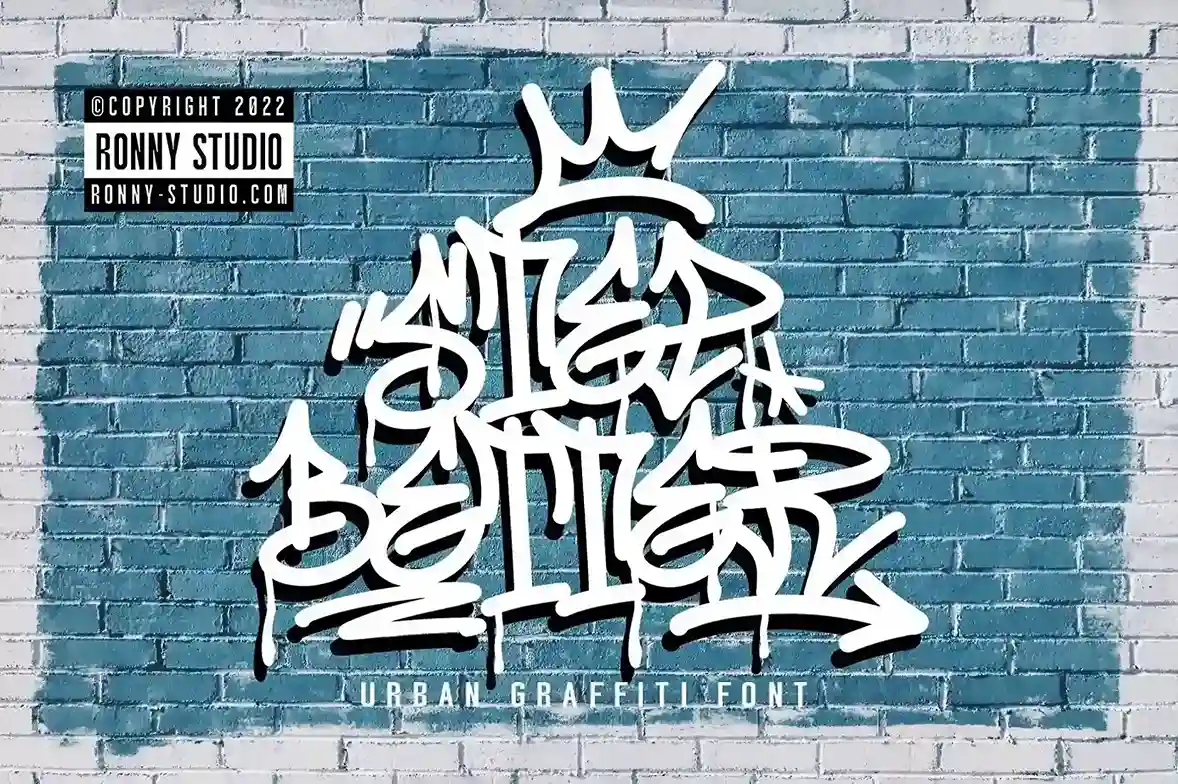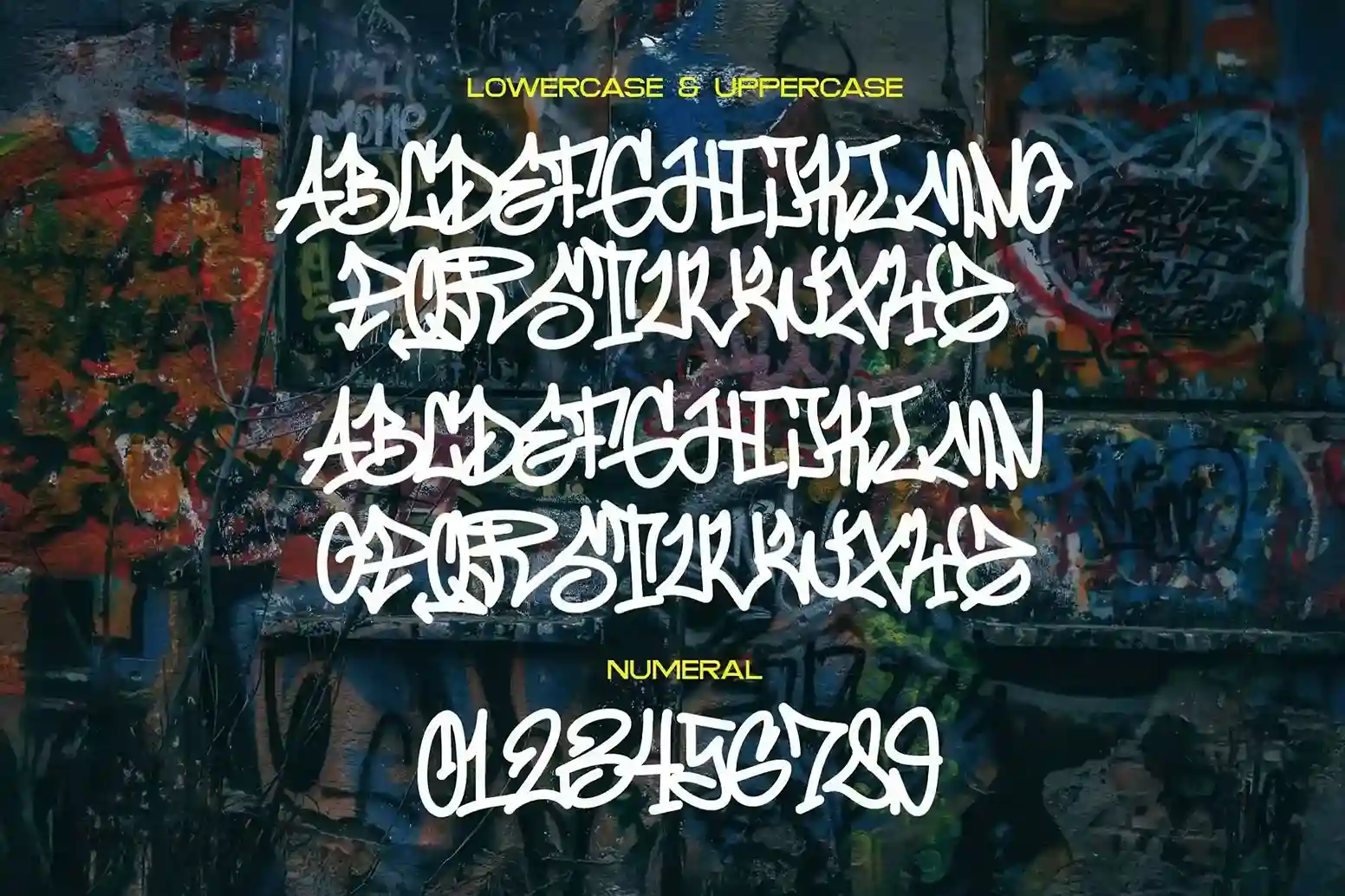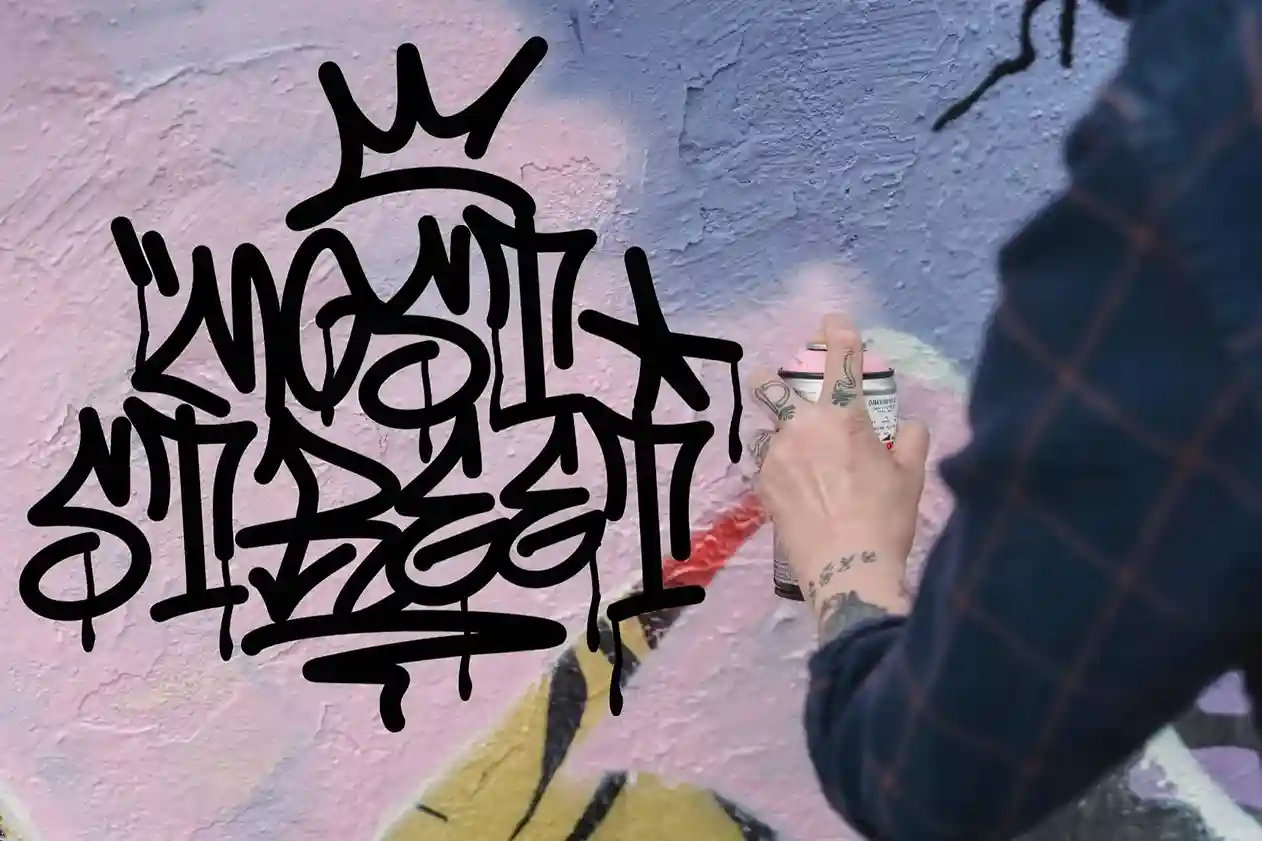
Step Better: Free Urban Graffiti Font Download
Step Better is a free urban graffiti font with bold strokes and street style. Perfect for posters, logos, and streetwear branding.
Step Better — Urban Graffiti Font isn’t just another typeface—it’s a street statement. Designed to capture the raw energy of subway tunnels, skate parks, and abandoned warehouse walls, this font brings authentic graffiti vibes to your projects. Every line, curve, drip, and splatter feels as if it was sprayed directly from a can, creating a truly hand-drawn, rebellious look.
Perfect for designers who want their work to feel loud, bold, and unapologetically street, Step Better mimics the authentic rhythm of urban art. It speaks the language of the streets, from late-night mural spots to skate culture zines, music covers, and streetwear branding.
The font comes with a full character set, swashes, ornaments, and multilingual support—meaning you can bring street energy to projects in multiple languages with complete creative freedom. Whether you’re creating striking poster designs, edgy logos, apparel graphics, or social media visuals for youth-driven brands, this font provides the perfect gritty edge.
Step Better’s unique letterforms are built with imperfect, expressive strokes that bring movement and texture to the page. It works perfectly as a headline font, logo font, or attention-grabbing element in both print and digital media. You can layer it with grunge textures, neon effects, or bold color schemes to amplify its rebellious tone.
Key Features:
• Urban Graffiti Style: Perfectly captures the aesthetics of street culture.
• Complete Character Set: Includes uppercase, lowercase, numbers, and punctuation.
• Swashes & Ornaments: Extra elements to add flair and custom touches.
• Multilingual Support: Covers multiple languages for global designs.
• Editable & Versatile: Ideal for flyers, logos, merchandise, album art, and more.
Perfect Uses:
• Streetwear Branding: Bring raw, edgy text to clothing labels and urban apparel.
• Music Posters: Ideal for hip-hop, rap, or punk concert promotions.
• Graffiti-inspired Logos: Make your branding bold and street-smart.
• Social Media Graphics: Attract youth audiences with powerful, expressive typography.
• Skateboarding & Urban Magazines: Perfect for underground zines and lifestyle prints.